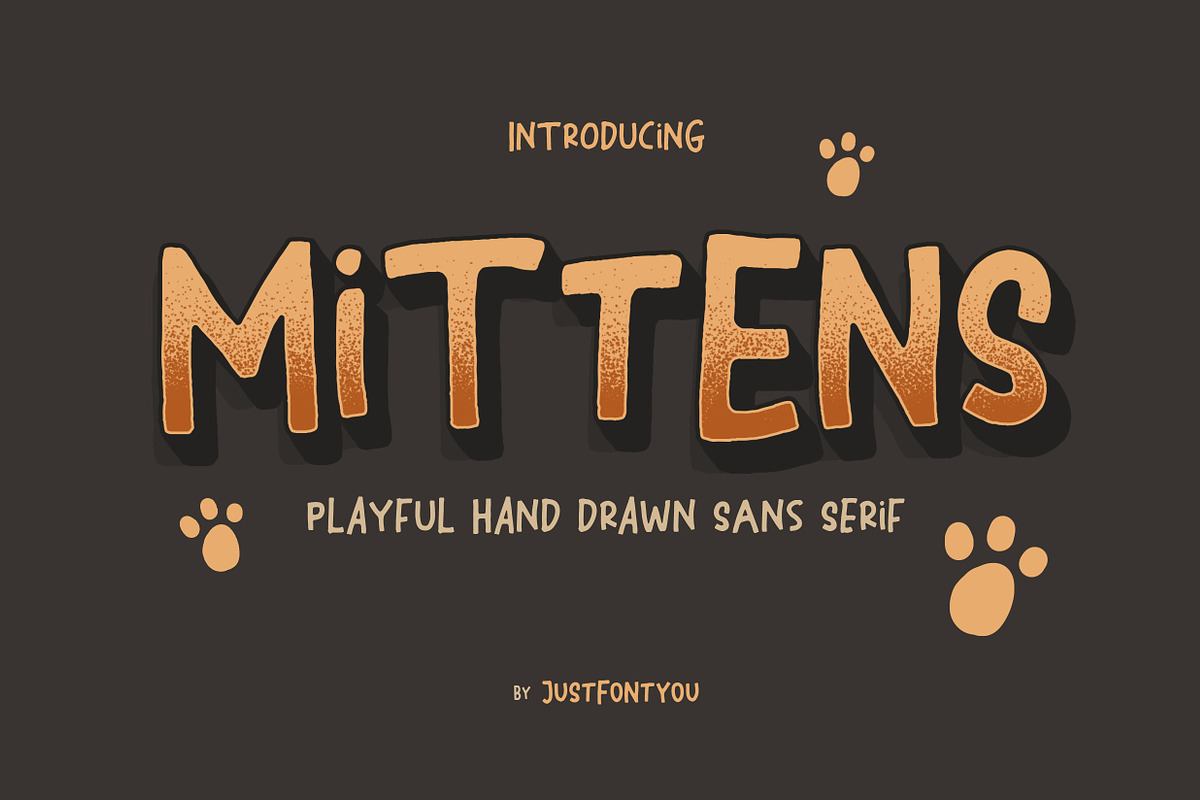
Mittens - Casual Fun Font Free Download
Please note, to use this font for commercial purposes, you must purchase the full version. Mittens is a playful and casual font designed to add a fun and friendly touch to your designs. With its rounded, easygoing letterforms, this font is perfect for logos, invitations, children's projects, branding, and more. Whether you're designing for a casual brand, a fun event, or a friendly invitation, Mittens brings charm and approachability to your work. Test it out and enjoy free download access for personal use. Experience the cheerful style of Mittens - Casual Fun Font Free Download before purchasing the commercial license. Add a fun, relaxed vibe to your designs with Mittens.